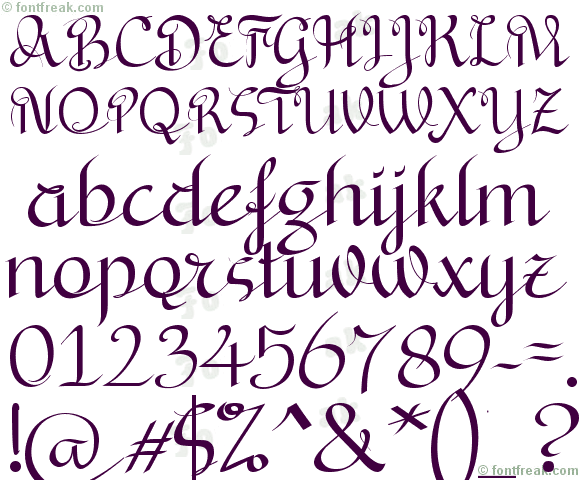
Bryana Aningsih Shara
Bryana Aningsih Shara, designed by Situjuh Nazara in 2013, is a captivating script typeface that exudes elegance and sophistication. This font showcases a fluid, cursive style characterized by its graceful curves and intricate strokes. The stroke weight is varied, with fine lines that enhance its delicate appearance, while the contrast between thick and thin elements adds depth and visual interest. The spacing is well-balanced, allowing for readability while maintaining an artistic flair. Decorative elements, such as flourishes and loops, provide a unique charm, making this typeface ideal for projects that require a touch of refinement.
The Bryana Aningsih Shara font is versatile and well-suited for a variety of applications. It shines in wedding invitations, where its romantic feel can perfectly complement the theme of love and celebration. Additionally, it can elevate the design of movie posters, adding a touch of drama and allure. Restaurant menus can also benefit from this font, as it creates an inviting atmosphere that enhances the dining experience. Content creators will find it useful for branding, capturing attention on social media graphics, or enhancing personal blogs with a stylish touch.
This font primarily targets graphic designers, small business owners, and content creators who seek to convey a sense of elegance in their work. The ease of access as a freeware typeface makes it an appealing choice for those on a budget, allowing anyone to incorporate high-quality typography into their designs.
What sets the Bryana Aningsih Shara font apart is its unique blend of artistic expression and functionality. This font free download provides users with the opportunity to experiment with style while maintaining clarity and readability, making it a standout choice for various creative projects.